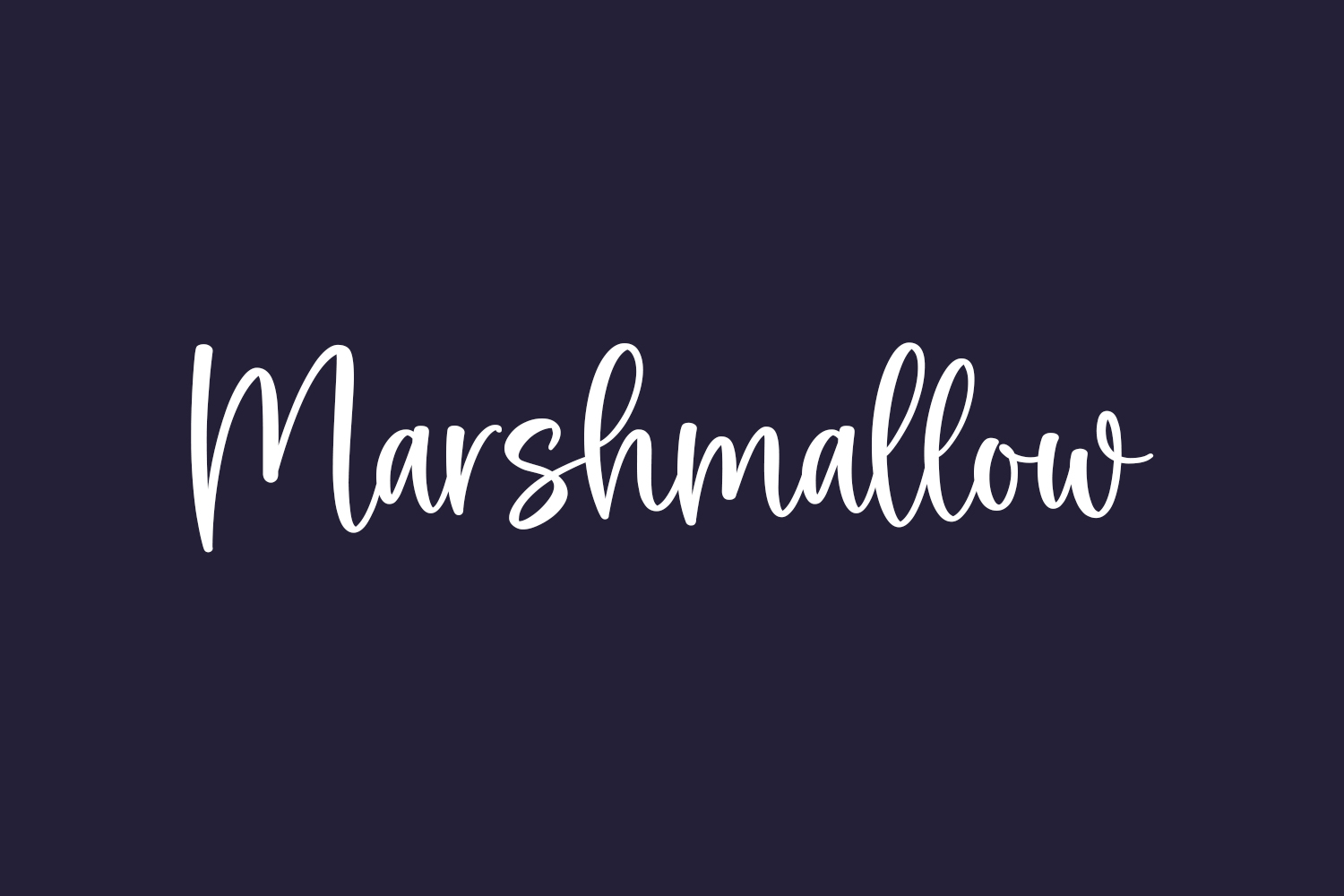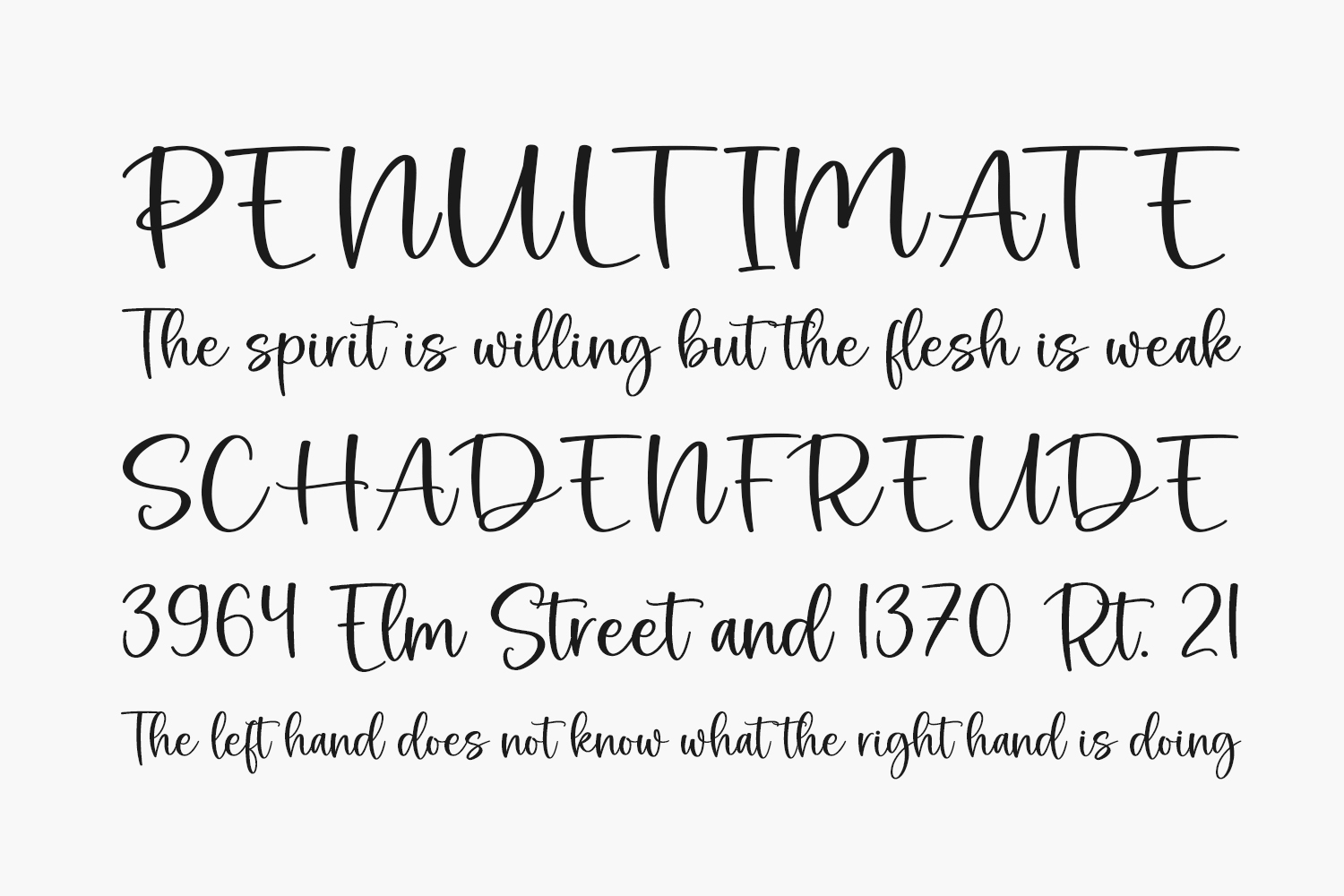
Marshmallow Free Font embodies delicacy, elegance, and fluidity in its handwritten form. With gracefully balanced characters, this font effortlessly complements a diverse array of designs, making it a versatile choice for various creative projects. Download the font for free if you need it for personal use or purchase the full version for commercial use.